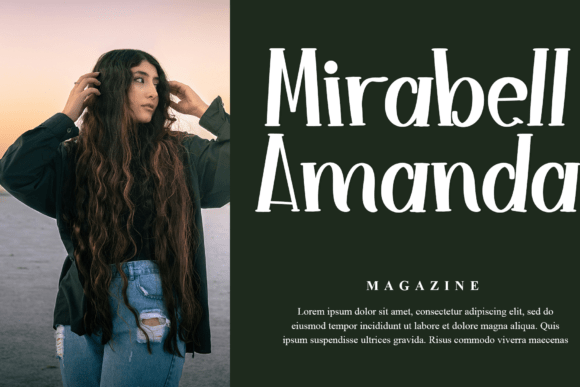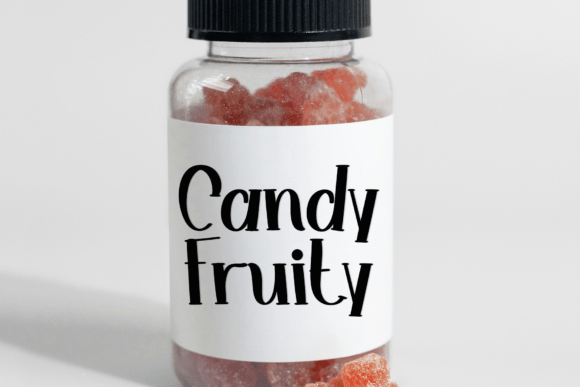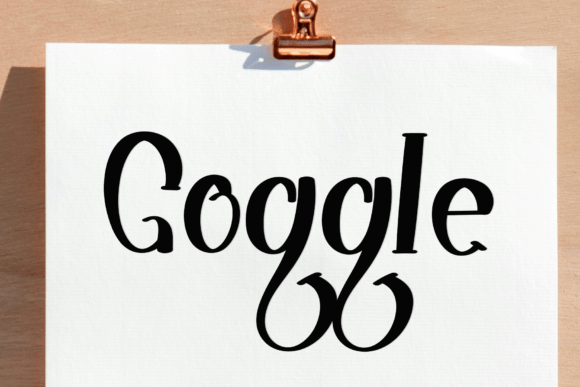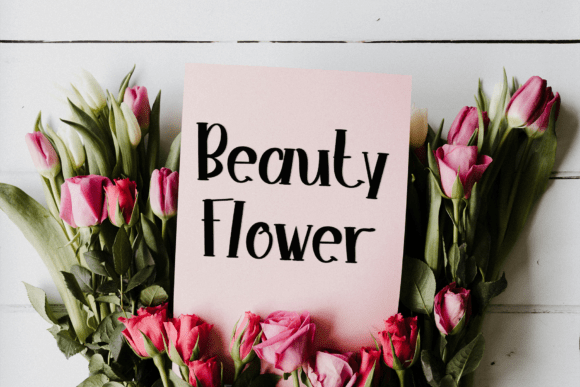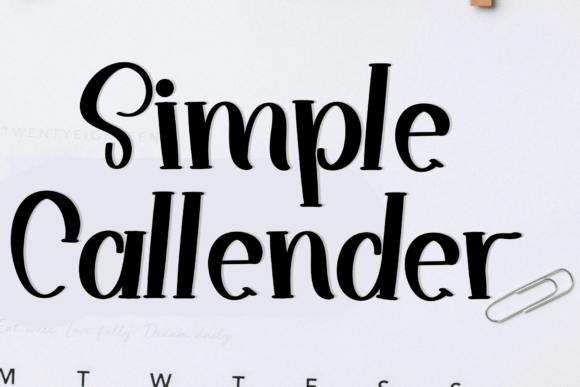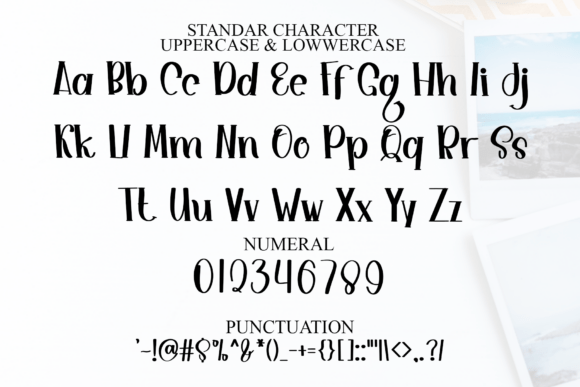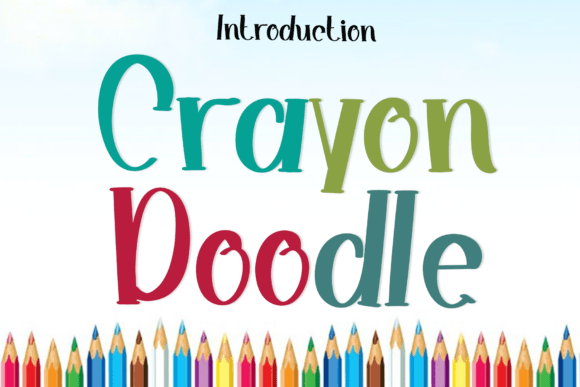
Crayon Doodle Font: Add a Festive Touch to Your Designs
The holiday season is upon us, and what better way to get into the spirit than with a font that’s as merry and bright as the twinkling lights on your Christmas tree? Look no further than the Crayon Doodle Font, a whimsical and decorative typeface that’s perfect for adding a touch of enchantment to your designs.
Crayon Doodle is a festive and merry typeface that’s specifically designed to capture the spirit of the holiday season. With its playful and whimsical flair, this font is sure to bring a smile to the faces of your audience. Whether you’re designing greeting cards, gift tags, or holiday-themed projects, Crayon Doodle is the perfect choice to add a cheerful and nostalgic ambiance to your words.
Decorative Elements and Whimsical Flair
One of the standout features of the Crayon Doodle Font is its decorative elements and whimsical flair. This font is designed to evoke the feeling of childhood wonder and magic, with intricate details and swirling patterns that are reminiscent of hand-drawn doodles. The result is a font that’s both playful and sophisticated, making it perfect for a wide range of design projects.
Crayon Doodle is specifically designed with holiday-themed projects in mind. Whether you’re creating greeting cards, gift tags, or social media graphics, this font is sure to add a touch of festive cheer to your designs. The font’s playful and whimsical nature makes it perfect for creating eye-catching headlines, titles, and captions that are sure to grab the attention of your audience.
Bring Your Typography to Life
With the Crayon Doodle Font, you can bring your typography to life in a way that’s both fun and creative. The font’s whimsical nature makes it perfect for creating eye-catching headlines, titles, and captions that are sure to grab the attention of your audience. Whether you’re a designer, crafter, or DIY enthusiast, this font is sure to inspire you to create something truly special.
Crayon Doodle is a font that’s perfect for both designers and crafters. Whether you’re creating professional-grade designs or handmade crafts, this font is sure to add a touch of magic to your projects. Designers will love the font’s versatility and flexibility, while crafters will appreciate the font’s playful and whimsical nature.
Tips for Using Crayon Doodle
Here are a few tips for using the Crayon Doodle Font in your designs:
- Use the font to create eye-catching headlines and titles that are sure to grab the attention of your audience.
- Combine the font with other decorative elements, such as illustrations or graphics, to create a truly unique look.
- Don’t be afraid to get creative and try new things – the Crayon Doodle Font is all about experimentation and self-expression!